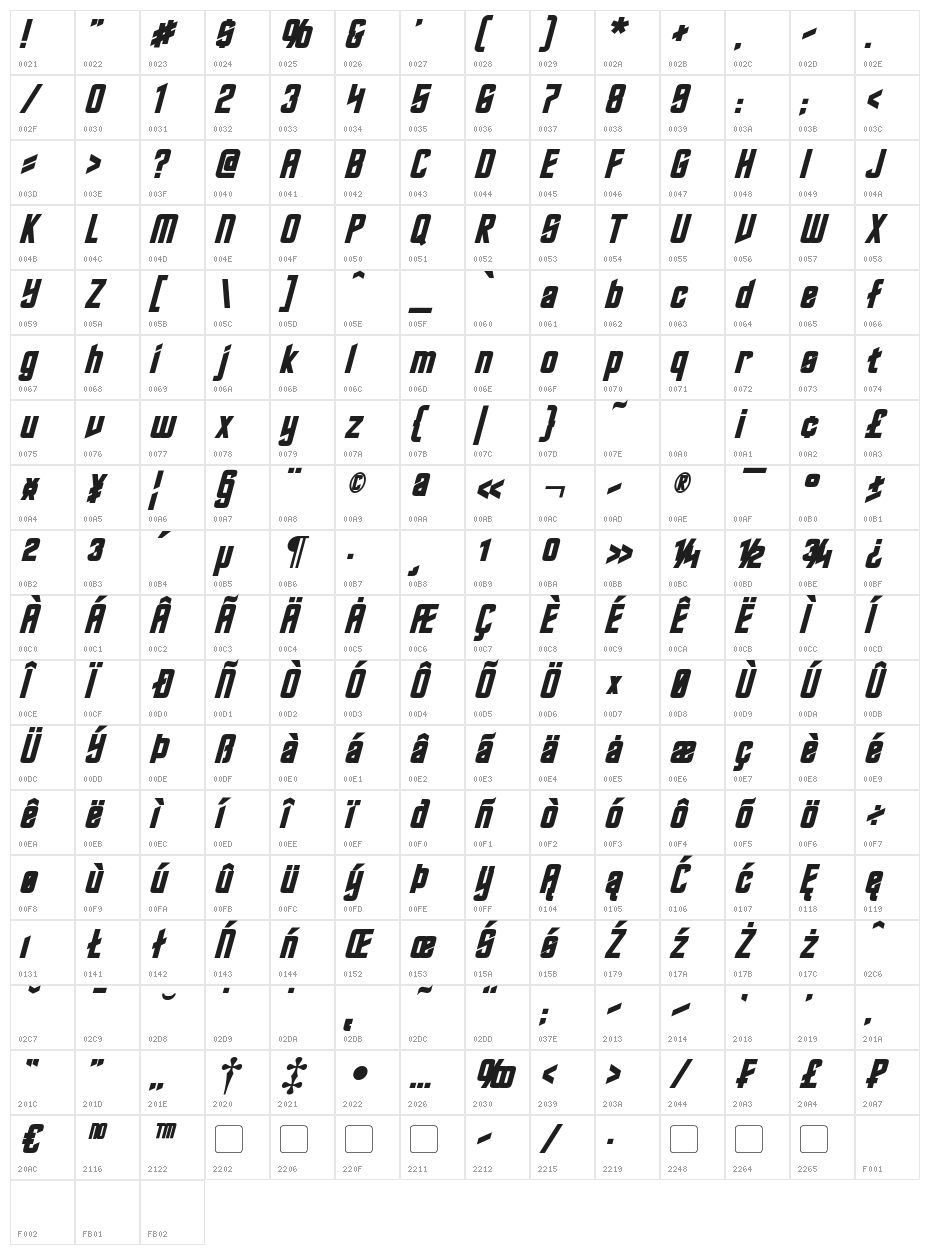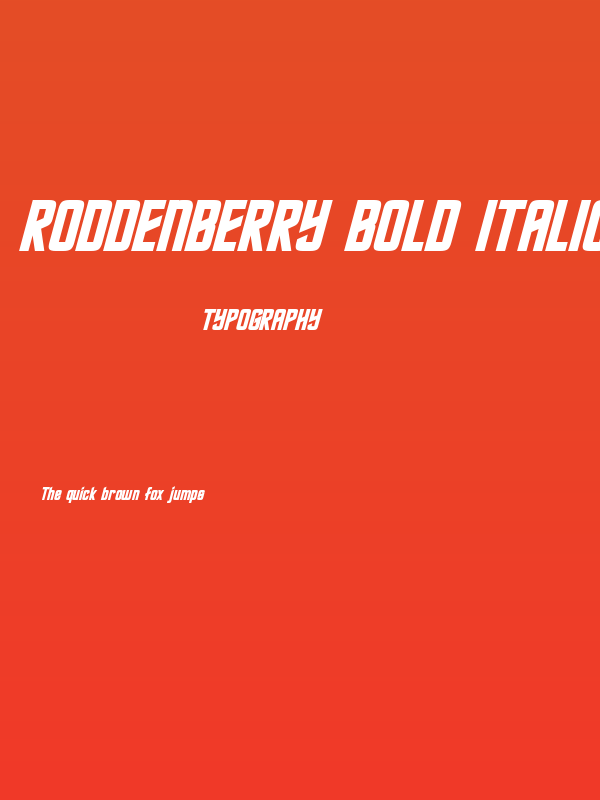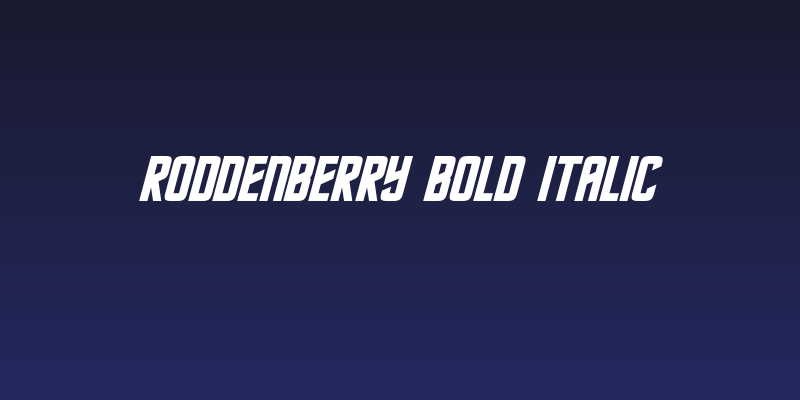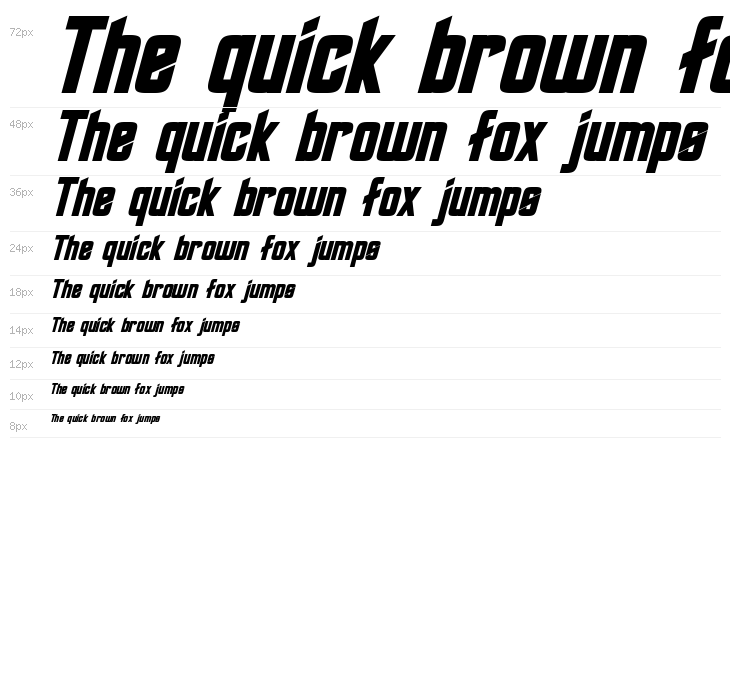
Roddenberry Bold Italic Font
Roddenberry Bold Italic Description
This font features a bold and italicized style, characterized by its strong, angular lines and dynamic slant. The uppercase and lowercase letters are designed with a futuristic flair, making them stand out with their sharp edges and distinct geometric shapes. The numerals and special characters maintain this bold aesthetic, ensuring consistency across all glyphs. The font's design is both modern and assertive, suitable for projects that require a strong visual impact.